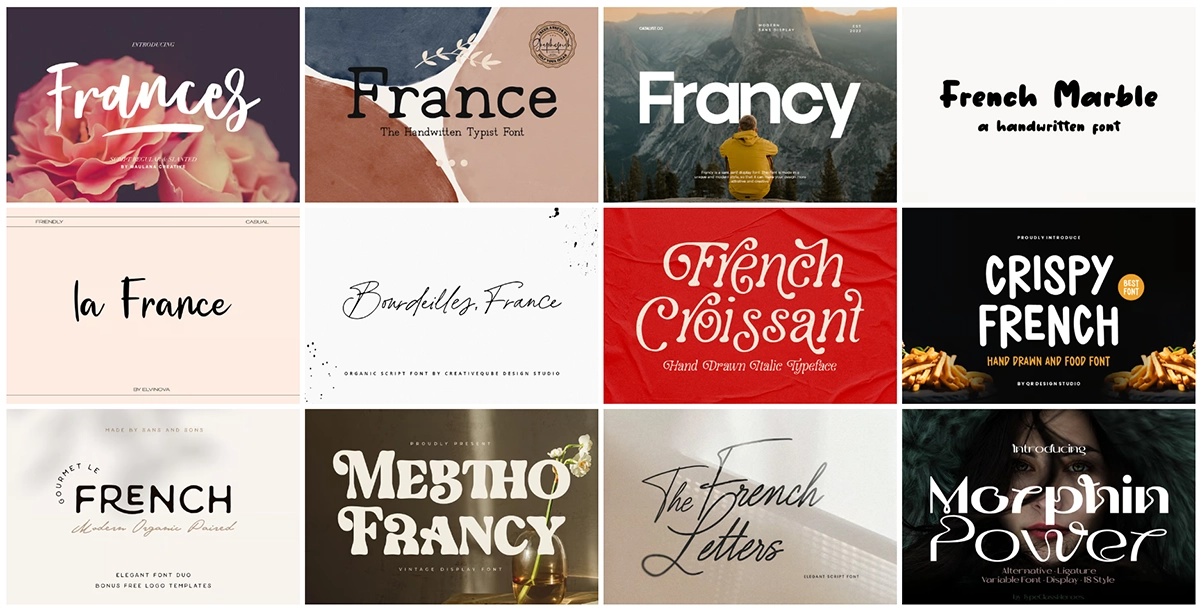
Add French Sophistication: 9+ Best French Fonts for a Classic Look You Can Own
Looking to enhance your design projects with the finest French fonts? Youโ€™re in luck! Weโ€™ve curated a selection of the best French fonts thatโ€™ll take your work to the next level. France is renowned for its style and sophistication, and its influence extends to typography. These fonts seamlessly blend tradition with modernity, offering a range of styles from classic serifs to contemporary sans-serifs. Whether youโ€™re designing a website, logo, or poster, these fonts add a touch of French elegance to your work. Ready to explore our top picks for the best French fonts? Letโ€™s dive in!
The best French fonts can make your designs look elegant and stylish, just like something youโ€™d see in France. These fonts have smooth lines, fancy curves, and details that remind you of French culture. They can really make your projects stand out!
Whether youโ€™re designing a cool logo, a neat website, or a fun poster, French fonts add a special touch. Some fonts are classic, like old books, while others are modern and clean. Each one has its own style, so you can pick the one that fits your project the best.
Since France is famous for art and design, there are lots of beautiful fonts to choose from. Weโ€™ve picked the most unique and useful ones for you to try in your work, no matter what youโ€™re creating.
In this post, youโ€™ll find a list of the best French fonts to help make your designs more stylish and creative. Whether youโ€™re a designer or just someone who loves cool fonts, thereโ€™s something here for everyone!
So, if you want to make your next project look even better, check out our favorite French fonts. Each one has its own special look, and youโ€™re sure to find the perfect one for your ideas!
Add French Sophistication: 9+ Best French Fonts for a Classic Look You Can Own
1. Gourmet Le French
Gourmet Le French Font
Gourmet Le French is a super fun font thatโ€™s all about French charm! It has cool little flourishes that make it stand out from other fonts, giving it a creative and playful feel.
This font is perfect for food-related projects like menus, restaurant signs, or even packaging for bakeries and cafes. Its hand-drawn look really brings out the vibe of French cuisine, making it feel both elegant and light-hearted at the same time.
Whatโ€™s great about Gourmet Le French is that it comes with lots of helpful features like multi-language support, ligatures, and OpenType options, so itโ€™s easy to use in all kinds of designs. You can use uppercase and lowercase letters, numbers, and punctuation, and it even has both sans and script styles to mix things up!
If you want a font that adds a touch of playful French flair to your design, Gourmet Le French is a fantastic choice!
2. Laxura โ€“ Majestic Typeface
Laxura - Majestic Typeface
Laxura is a font that mixes old-school style with modern design. Inspired by 18th-century European aesthetics, it has a vintage vibe while still feeling fresh and unique. The font is filled with smooth and sharp curves, giving it an elegant and sophisticated look, perfect for adding flair to any project.